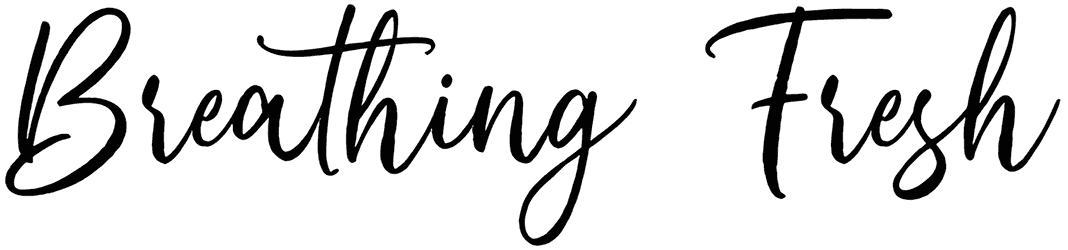
Breathing Fresh Font
Alright, get kicked out of executing this natural font with an organic vibe before anyone else finds it. Here, thanks to RB, Breathing Fresh as a script font with delicate lettering comes across to polish up your graphical displays.
Valentine cards, cosmetic designs, postcards, and other tasks that need a sweet, warm touch are missing, such as handwritten font. With all the time and creativity used in these letters, we just can’t wait to offer the rest of our mind-blowing fonts. Shall we?